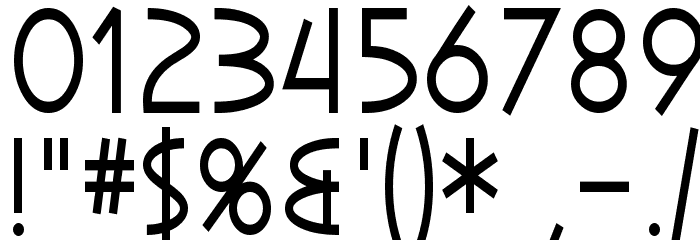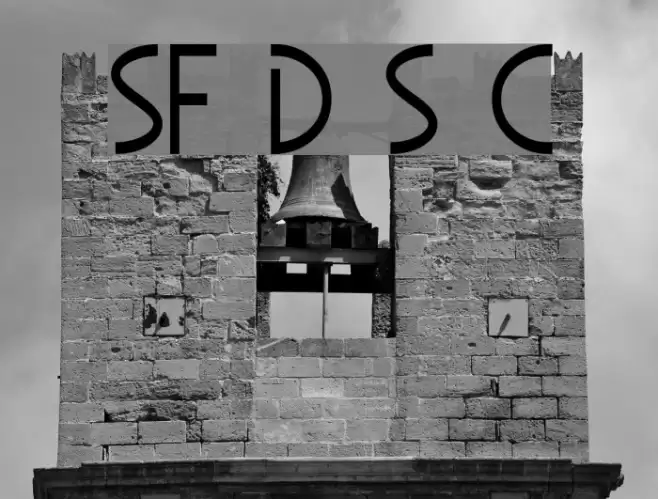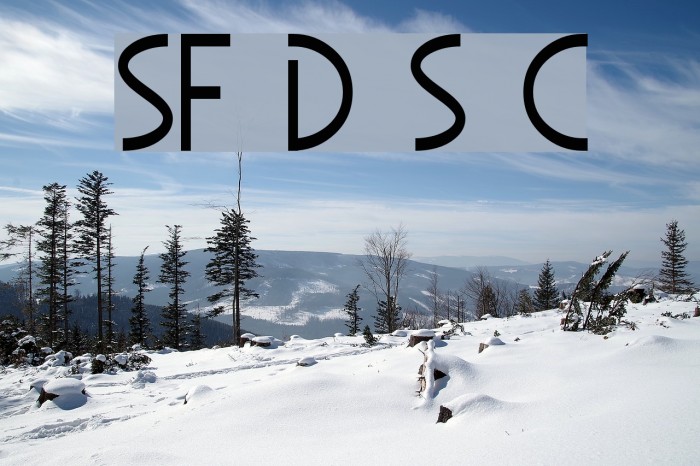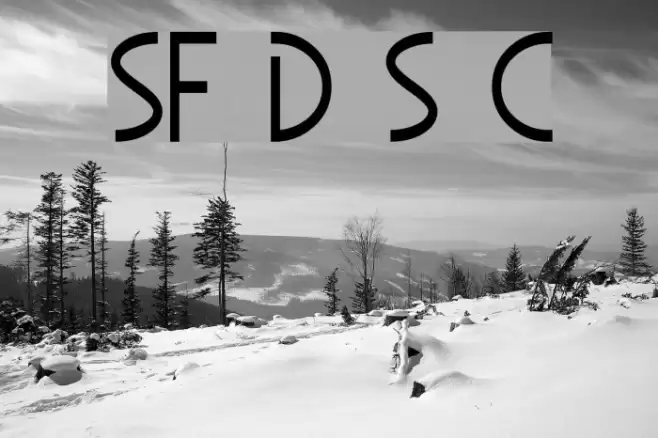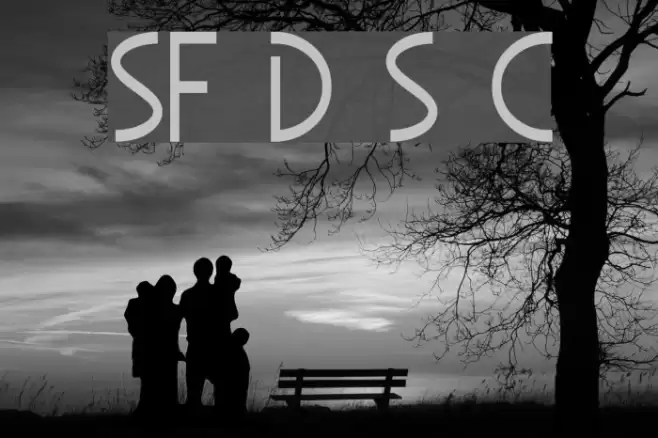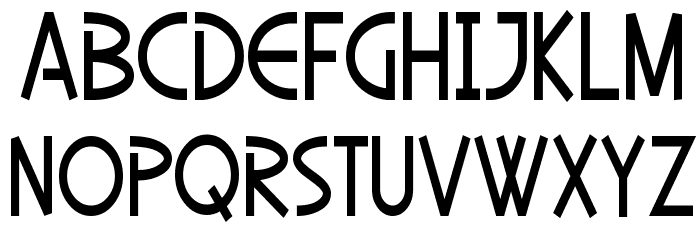
SF Diego Sans Condensed Font
SF Diego Sans Condensed Description
This font features a modern, geometric sans-serif style with clean lines and a condensed form. The characters are uniform in width, providing a sleek and efficient appearance. The uppercase letters exhibit a strong presence with sharp angles and straight edges, while the lowercase letters maintain a consistent height and structure. Numbers are clear and easily distinguishable, making them suitable for various applications. Special characters are well-defined, adding to the font's versatility. The overall design is minimalist, focusing on readability and contemporary aesthetics.